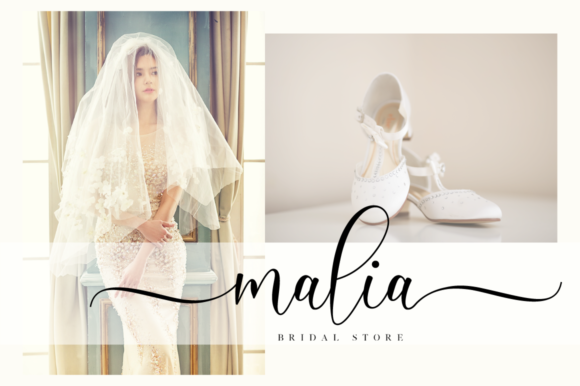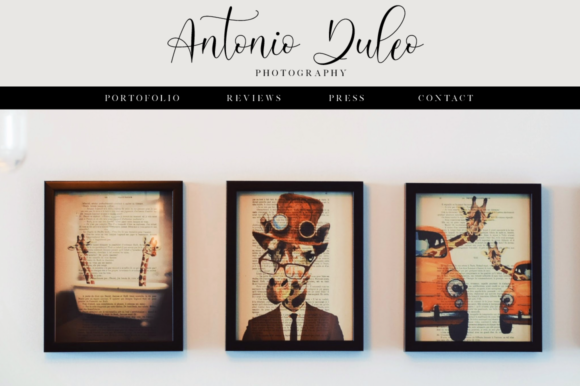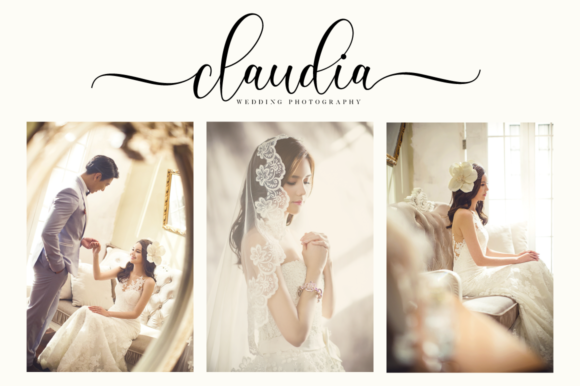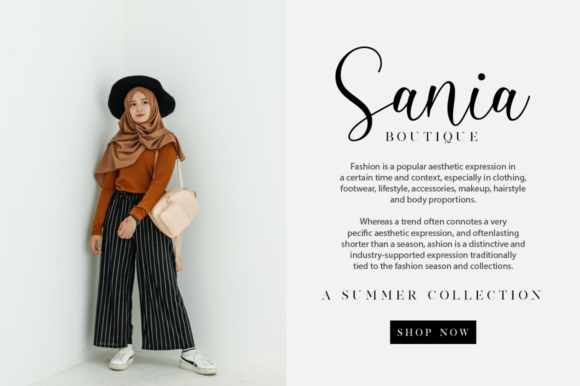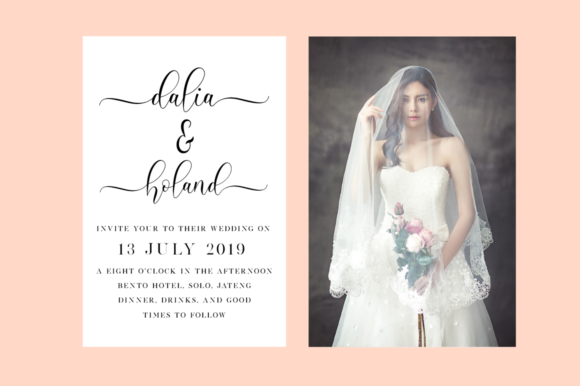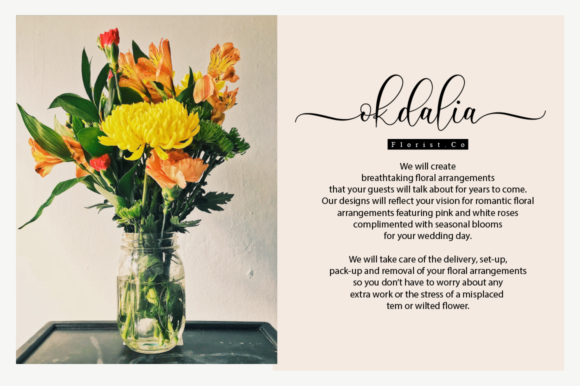
Introduction to Laila Script Font Font
Fonts play a crucial role in design, and the Laila Script Font font is a typeface that brings both character and versatility to any project. Whether you’re working on a branding project, a website, or a print design, the Laila Script Font font offers a unique style that can elevate your work.
Laila is a beautiful script font.
It has a classy, elegant, and modern look which can be used for logos, branding, invitations, stationary, wedding designs, social media posts, and every other design that needs a handwritten touch .
Key Features of Laila Script Font Font
Why Choose Laila Script Font Font?
The Laila Script Font font is more than just a typeface – it’s a design tool that helps you communicate your message with style and clarity. Its unique character set and versatile design make it suitable for a wide range of applications, from elegant invitations to bold headlines.
With its carefully crafted letterforms and balanced proportions, the Laila Script Font font ensures readability and visual appeal across all mediums.
What makes Laila Script Font font special?
The Laila Script Font font stands out with its unique design, exceptional readability, and versatility across various design applications.